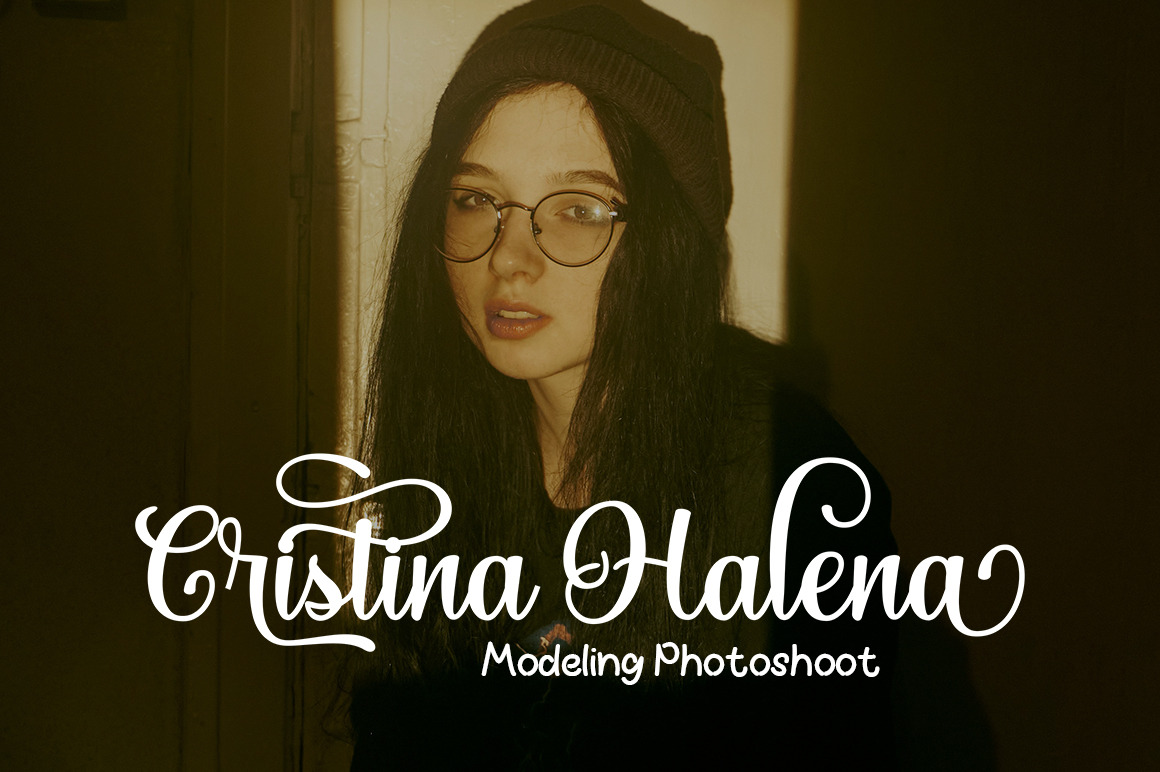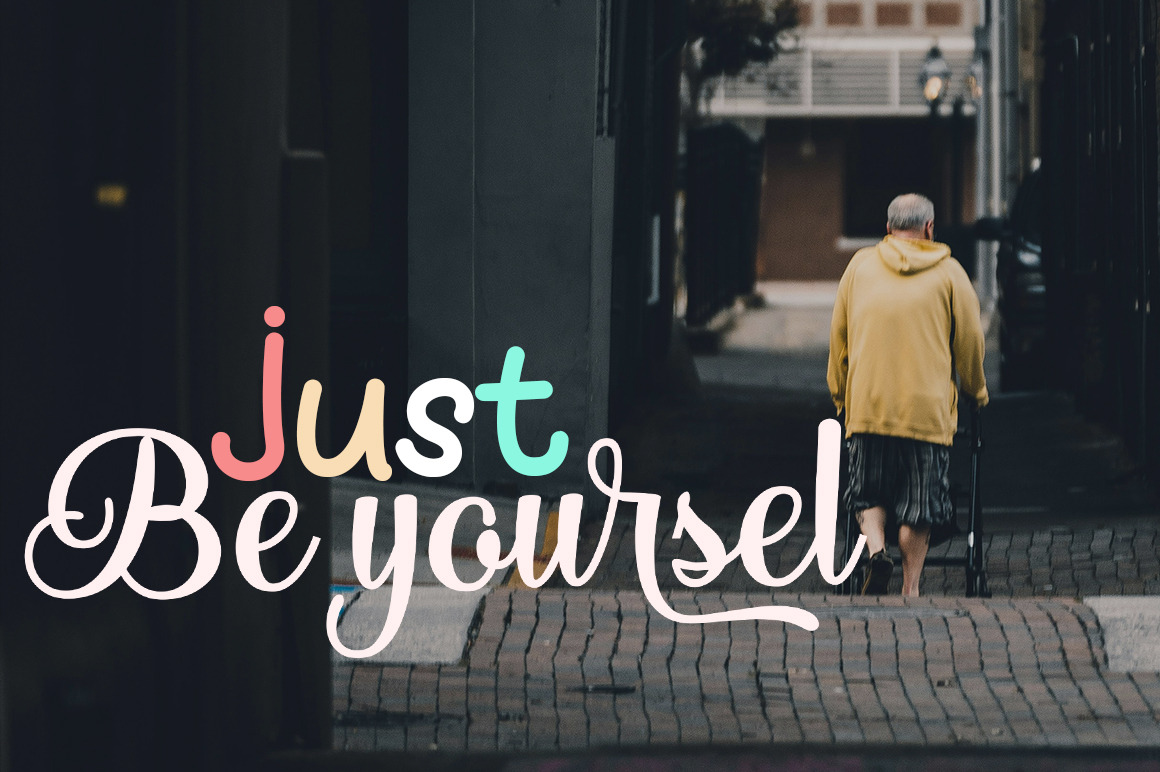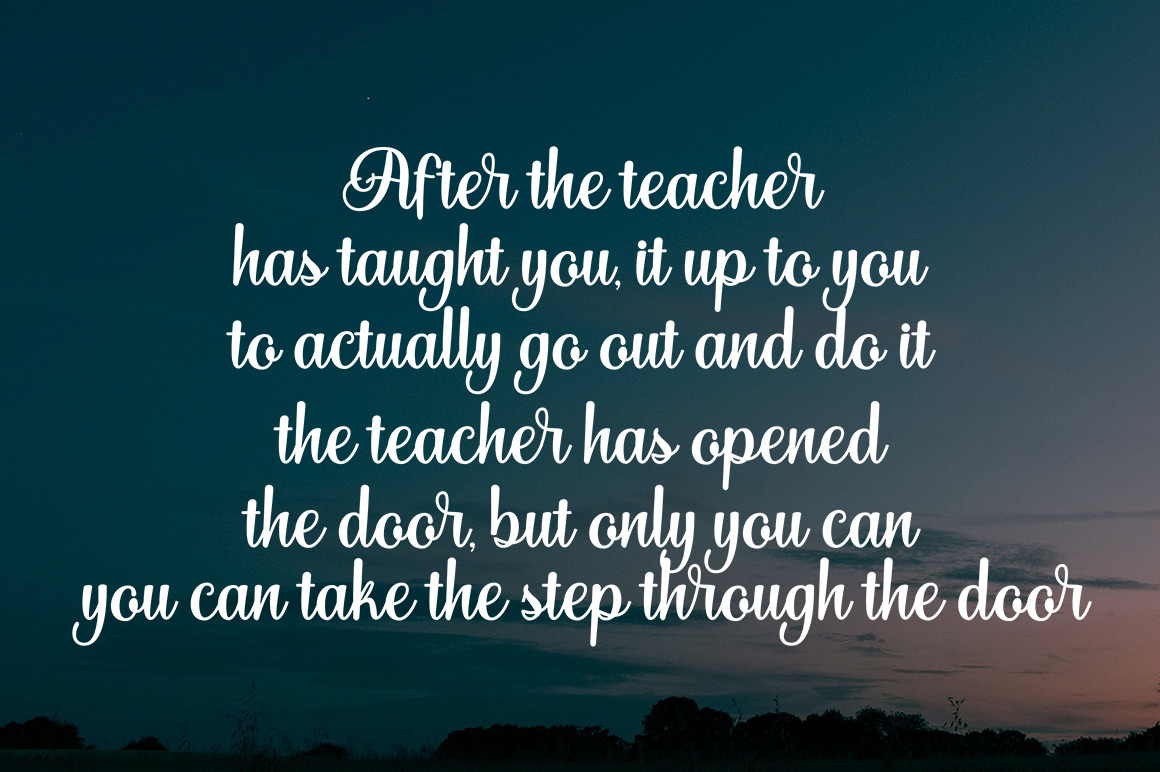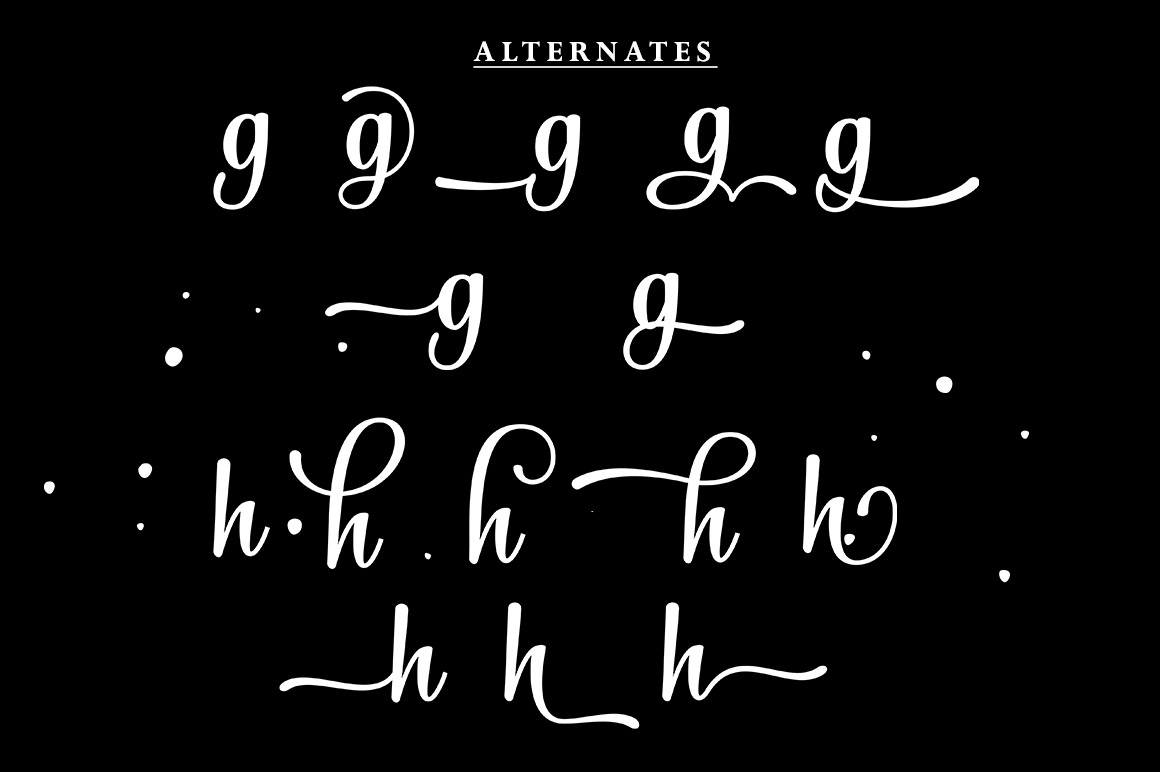
Magic Helloween Font
Magic Helloween is a handwritten (script and display) font duo that is modern, stylish, and flowing. It has a beautiful, balanced character and as a result, fits into many designs. It is the best choice for creating eye-catching logos, branding and quotes. Add them to your most creative ideas, and watch how they come to life!